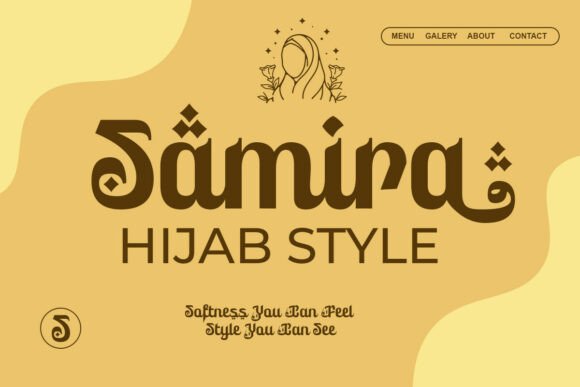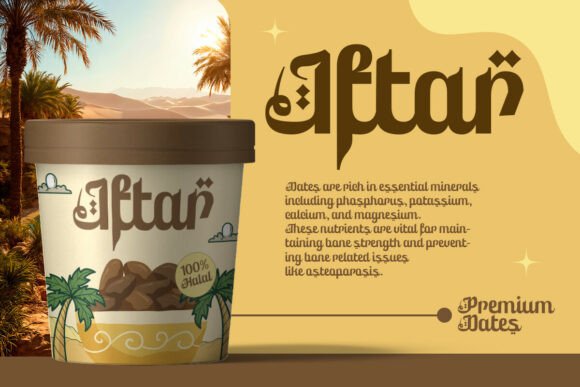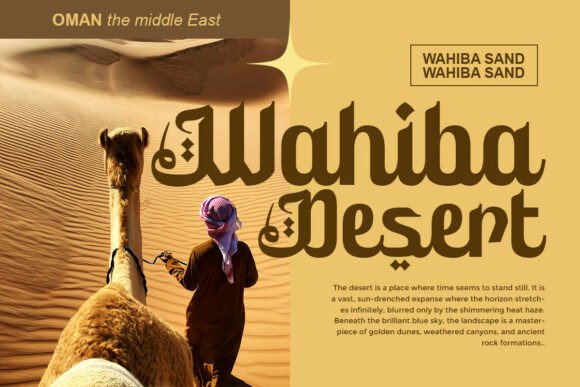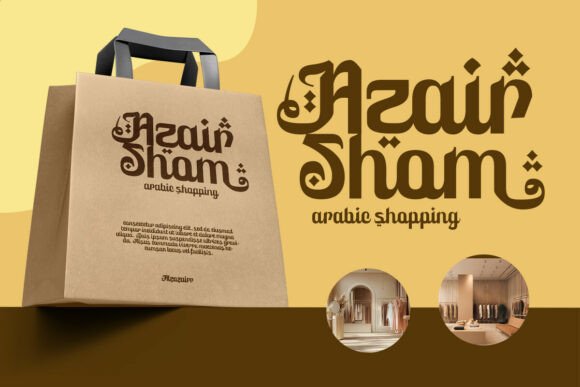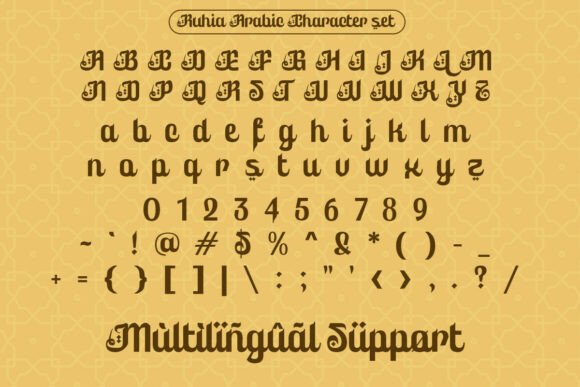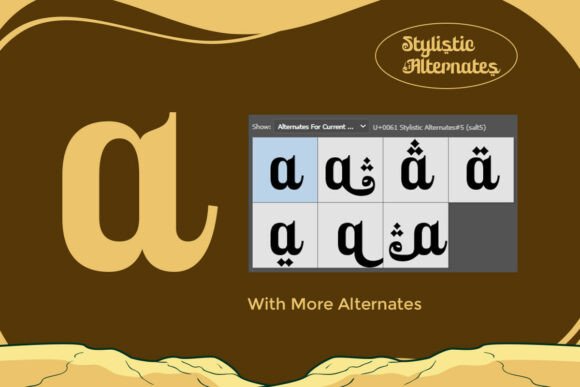
Introduction to Ruhia Arabic Font
Have you ever stared at a blank page, eager to bring a creative project to life, but struggling to find the perfect font to capture its essence? I’m sure many designers can relate to this feeling. For projects that require an exotic, cultural, or elegant Islamic-inspired aesthetic, I’d like to introduce you to the stunning Ruhia Arabic Font.
This beautiful font is more than just a design resource – it’s a key to unlocking the rich visual character of the Middle East. With its flowing curves, sharp terminals, and rhythmic strokes inspired by traditional Arabic script, Ruhia Arabic Font adds a luxurious and culturally rich touch to any project. Whether you’re working on a branding project, creating packaging, or designing posters for a cultural event, this high-quality font is sure to elevate your design to the next level.
Not only is Ruhia Arabic Font a great design tool, but it’s also incredibly versatile, making it perfect for designers who want to combine contemporary design needs with timeless Arabic artistic influence. And the best part? It’s available for free download, allowing you to add a transparent background and bring your creative vision to life.
Key Features of Ruhia Arabic Font
- High-quality, professional design suitable for creative projects and publications
- Comes in a transparent background, making it easy to integrate with any design resource
- Supports a wide range of languages, including Arabic, making it an ideal font for multilingual projects
- Designed to be highly legible and readable, even at small font sizes
- Perfect for designers, writers, and artists working on creative projects that require a unique and authentic Arabic font
Honest Review: Ruhia Arabic Font
I recently stumbled upon the Ruhia Arabic Font, and I must say it’s a great addition to any design resource collection. This font is perfect for any creative project that requires a touch of elegance and sophistication.
Here’s what I like about it:
- ✨ High-quality design: The font’s intricate details and smooth curves make it a pleasure to work with.
- ✨ Versatility: Ruhia Arabic Font can be used for a wide range of designs, from business cards to magazine covers.
- ⚠️ Limited transparency options: While the font itself looks great, the transparent background option is a bit limited, which can make it difficult to use in certain situations.
- ⚠️ Not suitable for all designs: Ruhia Arabic Font is best used in creative projects with a more traditional or vintage feel. It may not be the best choice for modern or minimalist designs.
Overall, I’m impressed with the Ruhia Arabic Font. It’s a great design resource that can add a touch of sophistication to any project. With a few minor limitations in mind, I highly recommend giving it a try.
Tips for Getting the Most Out of Ruhia Arabic Font
Use the font in conjunction with other design elements, such as images and graphics, to create a visually appealing design. Experiment with different font sizes and styles to add depth and interest to your design. Consider using the font as a design resource for your creative project.
The Ruhia Arabic Font is commonly used in creative projects, such as graphic design, digital art, and web design. It is also useful for creating high-quality documents, such as brochures, flyers, and business cards. With its free download feature, you can access the font and start creating your design project today.